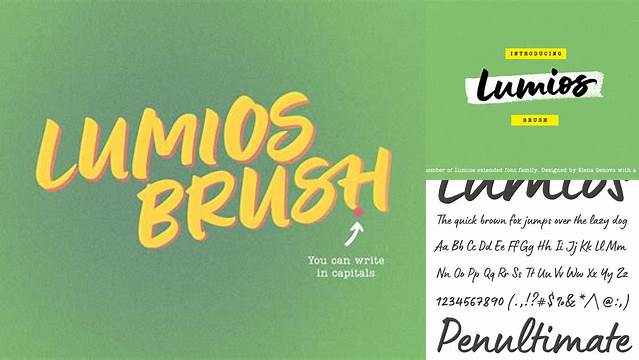
Lumios Brush Font: Free Download For Creative Designs
Are you guys looking to add a personal touch to your designs? Well, you've come to the right place! Let's dive into the world of Lumios Brush Font, a fantastic typeface that can bring a handcrafted feel to your projects. In this article, we'll explore what makes Lumios Brush Font so special, where you can download it for free, and how you can use it to create stunning designs. Whether you're a seasoned designer or just starting out, Lumios Brush Font is a versatile tool that you'll definitely want in your font library.
What Makes Lumios Brush Font Unique?
Lumios Brush Font is more than just another typeface; it's a digital embodiment of authentic brushstrokes. The font captures the natural, free-flowing character of hand-painted lettering, making it an excellent choice for projects that need a personal and artistic touch. Unlike many generic fonts, Lumios Brush Font brings warmth and spontaneity to your designs, allowing them to stand out with a unique, handcrafted appeal. It’s designed to mimic the irregularities and slight imperfections of real brush lettering, which adds to its charm and authenticity. The varying thickness of the strokes, the textured edges, and the dynamic curves all contribute to a look that feels both modern and timeless.
One of the key features of Lumios Brush Font is its versatility. It’s not just limited to a specific type of project; it can be used in a wide array of designs, from branding and advertising to social media graphics and personal projects. Its casual yet elegant style makes it perfect for invitations, posters, logos, and much more. Imagine using Lumios Brush Font for a wedding invitation—the handwritten feel adds a touch of romance and sophistication. Or picture it on a poster for a local coffee shop, giving it a cozy and inviting vibe. The possibilities are truly endless.
Another aspect that sets Lumios Brush Font apart is its readability. Despite its artistic flair, the font remains legible across various sizes and applications. This is crucial because, while aesthetics are important, the primary function of a font is to communicate a message effectively. Lumios Brush Font strikes a perfect balance between style and functionality, ensuring that your message is not only visually appealing but also easily understood. Whether you’re using it for headlines, body text, or even smaller captions, Lumios Brush Font maintains its clarity and impact.
Moreover, Lumios Brush Font often includes a variety of stylistic alternates and ligatures. These additional characters allow you to further customize your text and add even more personality to your designs. Stylistic alternates provide different versions of certain letters, giving you the option to choose the one that best fits your overall aesthetic. Ligatures, on the other hand, are special characters that combine two or more letters into a single glyph, creating a seamless and visually pleasing connection between the letters. These features give you greater control over the final look of your text, making Lumios Brush Font a truly versatile and expressive tool.
Conclusion: Unleash Your Creativity with Lumios Brush Font